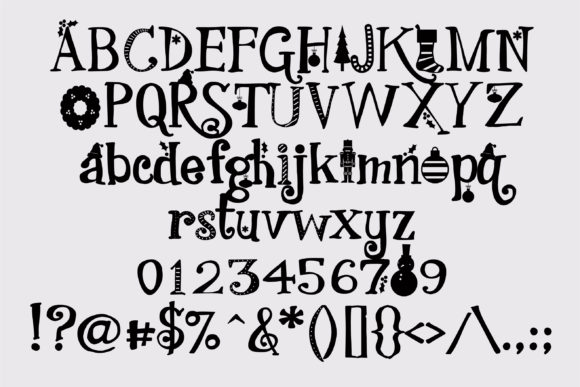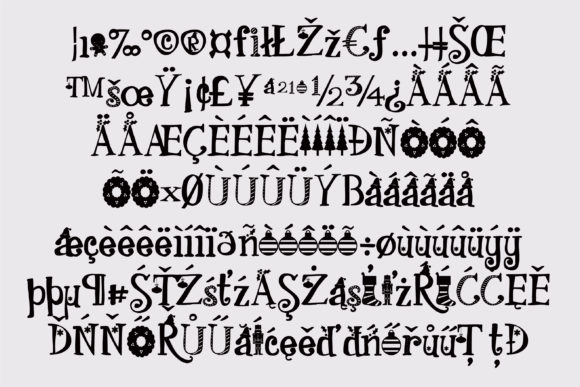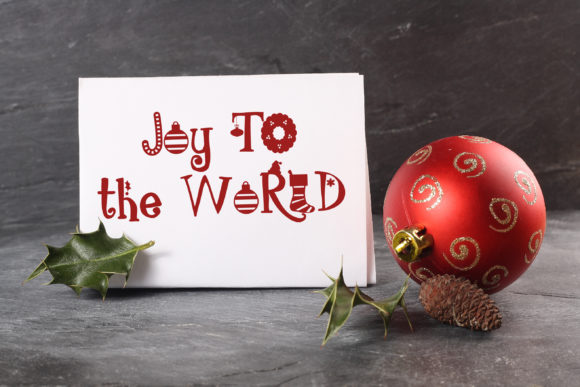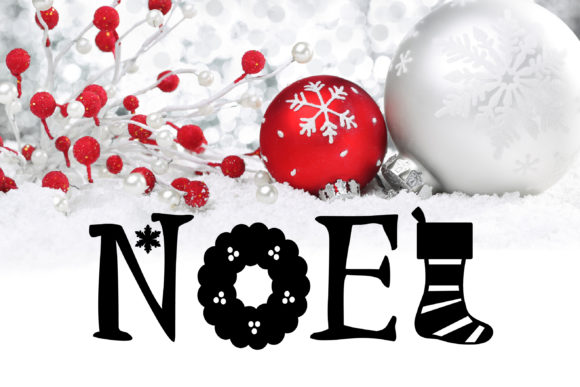
HomeScript FontsPN Christmas Town Font Script Fonts PN Christmas Town Font FacebookXPinterestWhatsApp PN Christmas Town Font Poster 2 PN Christmas Town Font Poster 3 PN Christmas Town Font Poster 4 PN Christmas Town Font Poster 5 About PN Christmas Town Font This hand-illustrated font has cute Christmas illustrations representing many letters. DOWNLOAD ON CREATIVE FABRICAThis font is sold and delivered by Creative Fabrica. Font Canyon may earn a commission if you buy through this link. People also explored Happy Valentine Bostage Font Evocative Font Go to Farmhouse Font Angelio Font The Paper Clip Font Longshine Font Petite Romance Font Axeloan Font 549 0 TagsPN Christmas Town Font Previous articlePN Sleigh Serif Holly FontNext articleGramattica Font LEAVE A REPLY Cancel reply Comment: Please enter your comment! Name:* Please enter your name here Email:* You have entered an incorrect email address! Please enter your email address here Website: Save my name, email, and website in this browser for the next time I comment. Personal Use Free Whoa Personal Use Free Read more about this font Williana Personal Use Free Read more about this font Burnstown Dam Personal Use Free Read more about this font Sushi Day Personal Use Free Read more about this font BLOG Exploring Font Trends Shaping Communication in the Digital Era Fonts, like all design elements, are subject to trends. They play a crucial role in communicating a brand's personality,... Top 10 Handwritten Fonts That Elevate Your Designs Best Fonts for T-Shirt Design – Top 2025 Picks Free vs Paid Fonts: Why Investing in Premium Fonts Is Worth It